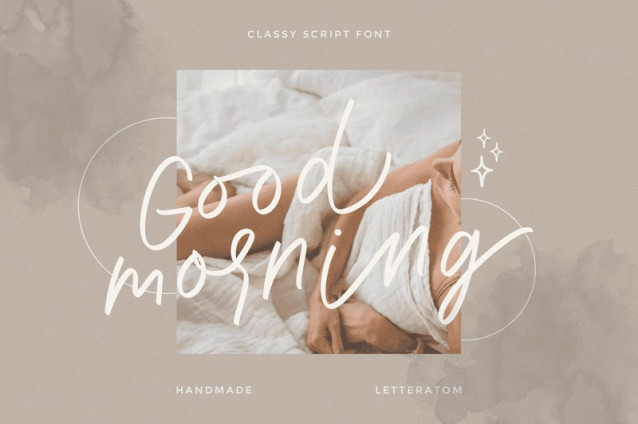
Western Europe Handwriting Font
Western Europe Handwriting Font is a simple and friendly handwritten font. Its natural and unique style makes it incredibly fitting to a large pool of designs. The only limit is your imagination!